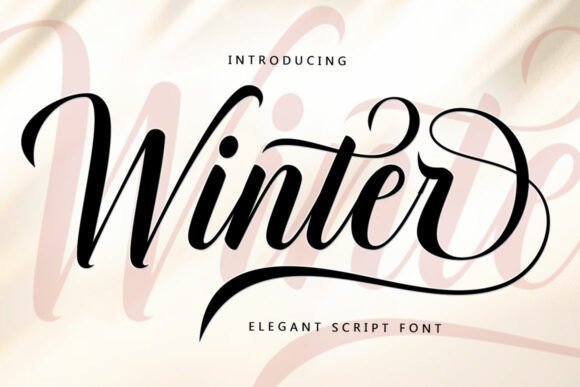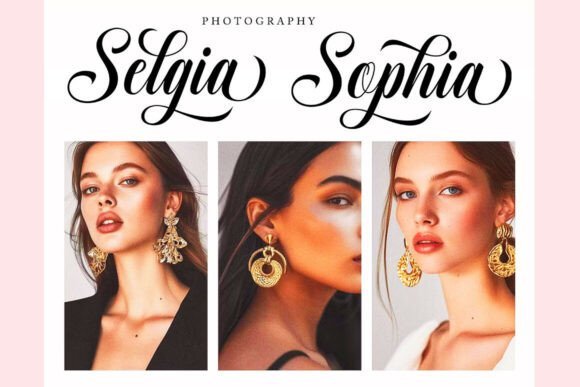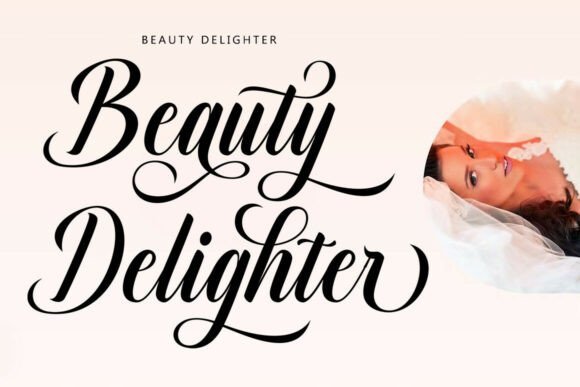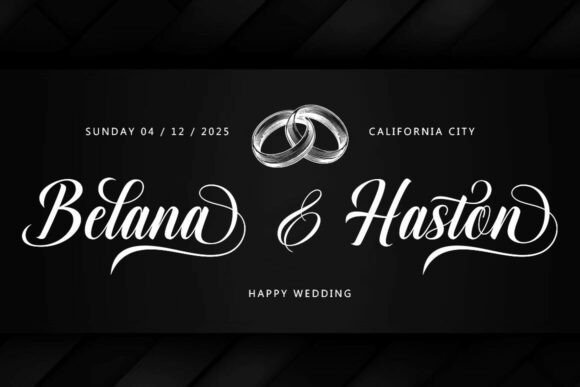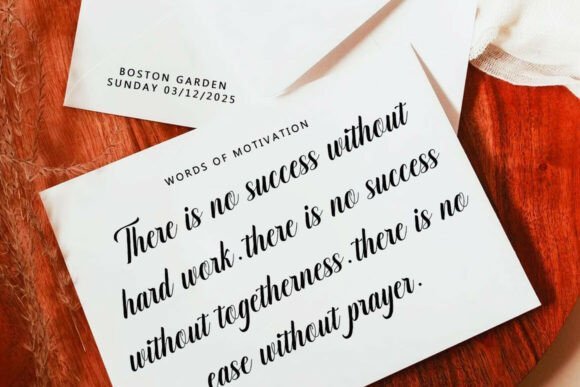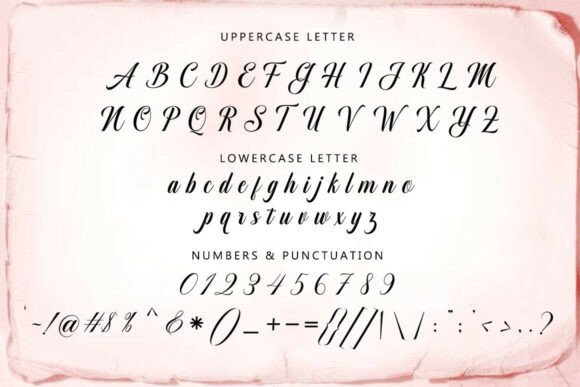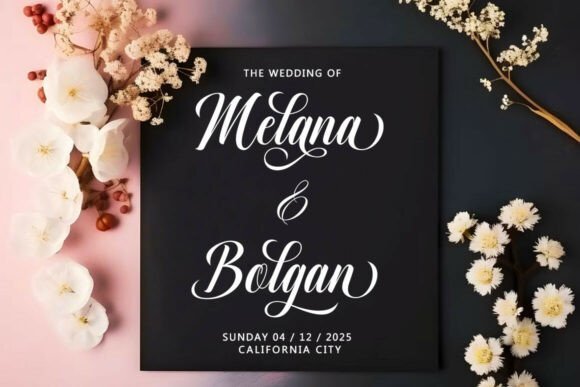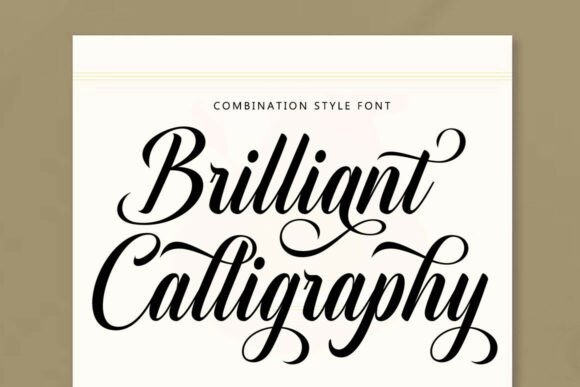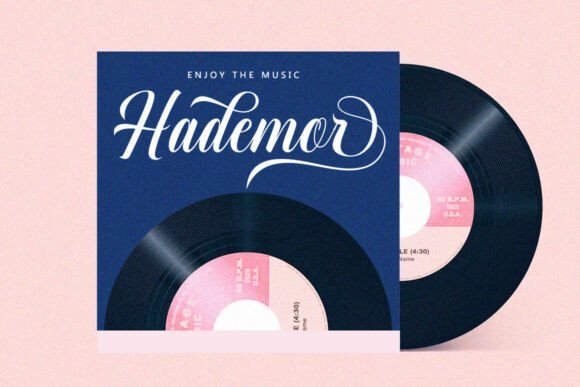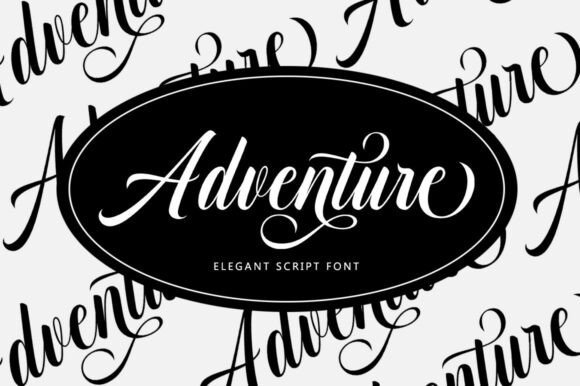
Winter 375 is a stylish and cozy display font that brings warmth and character to seasonal designs, perfect for adding a festive touch to your creative projects Read more
Winter 375 is a unique, handcrafted display font inspired by the charm of winter and holiday celebrations. Featuring soft, textured lines and a whimsical design, it’s ideal for greeting cards, branding, invitations, social media graphics, and everything in between. Elevate your winter-themed projects with a font that combines cozy elegance and playful personality, making every word feel special and festive.+2
Winter 375 is a cozy, stylish display font that brings a touch of warmth and seasonal charm to any project, perfect for festive designs and creative branding.